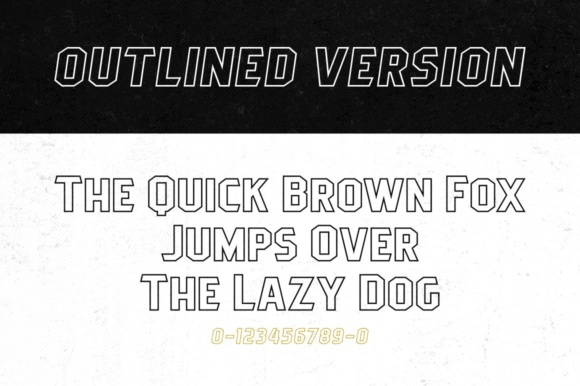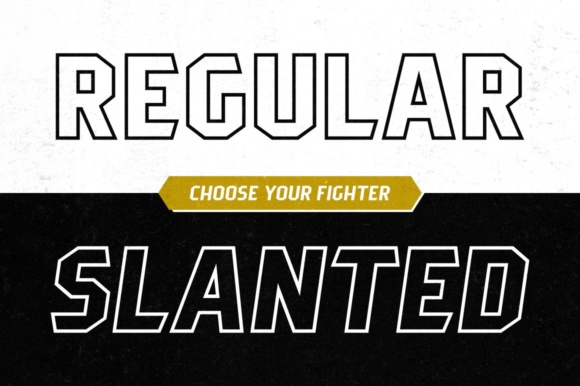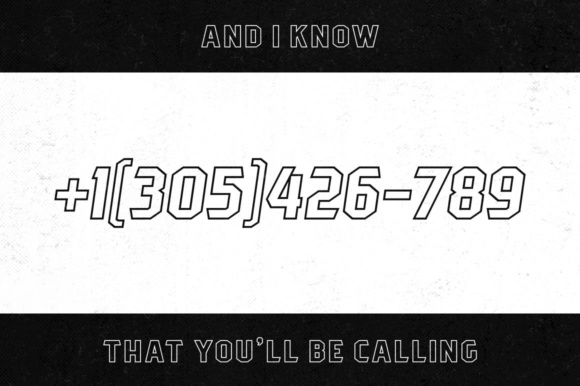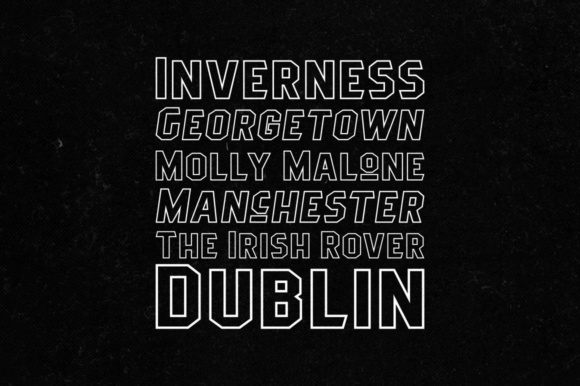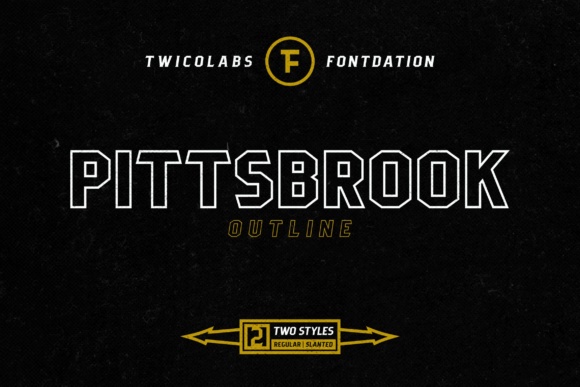
Pittsbrook Outline Font
The Pittsbrook Outline is a classic outlined typeface that was inspired by the letters used in old advertisement and packagings. Its rigid shape gives your design strong, sharp and blocky feelings.
It suits best for E-Sport logos, liquor/food labels, packaging, headlines, space-fillers, logotypes, typographic quote writings, etc.